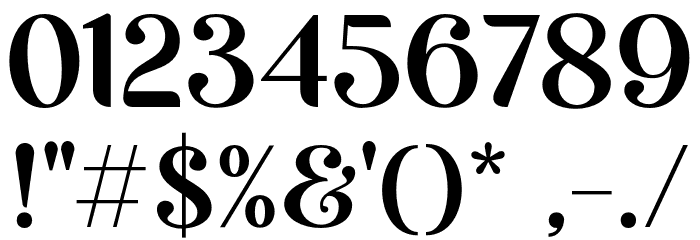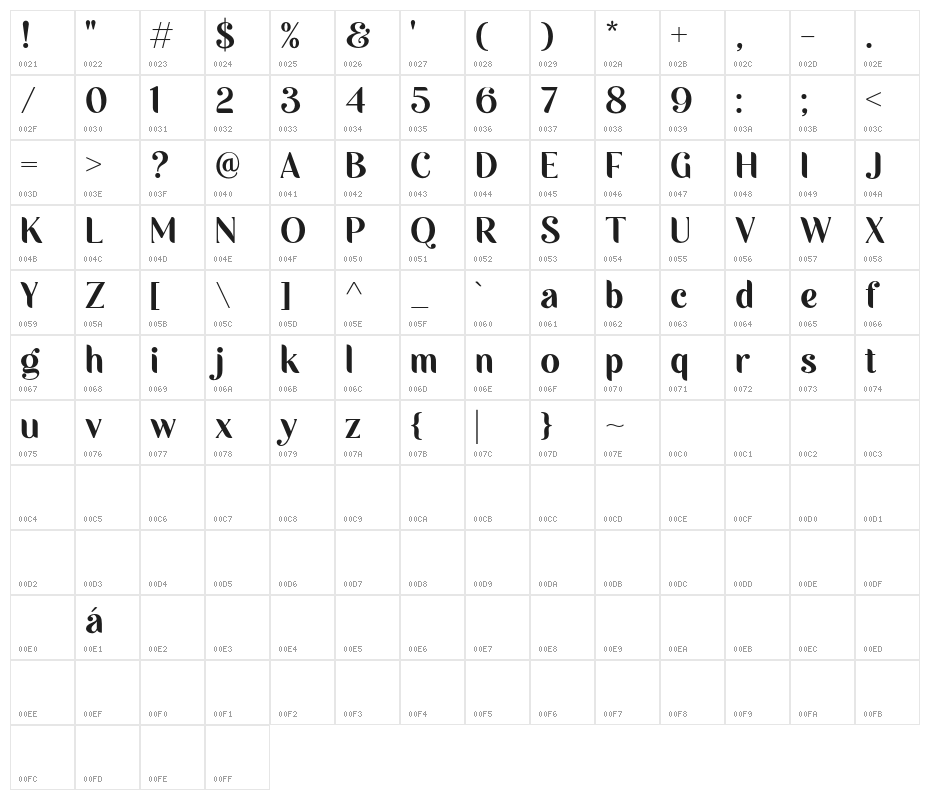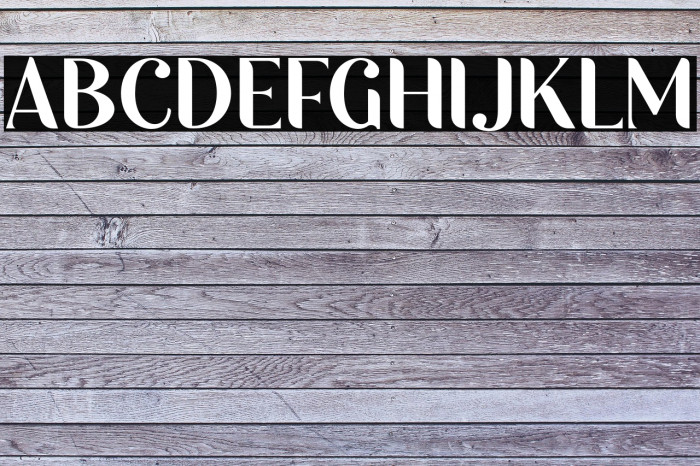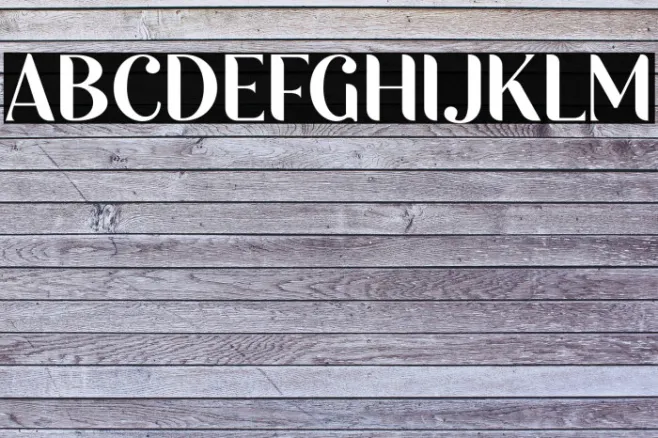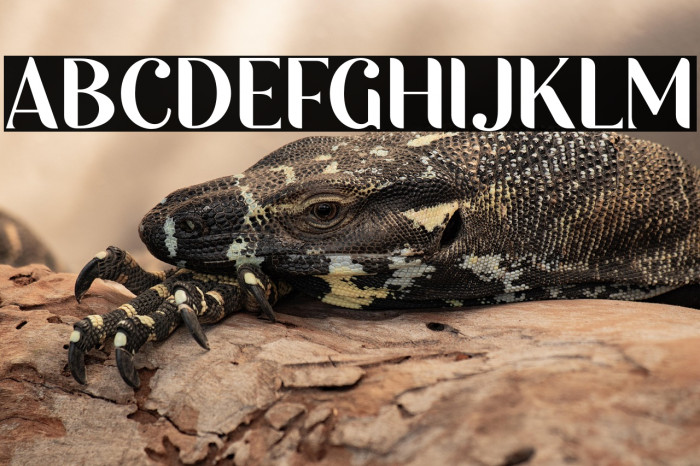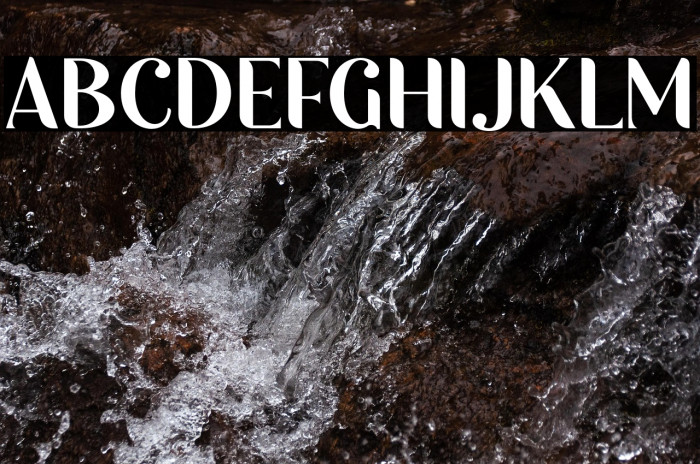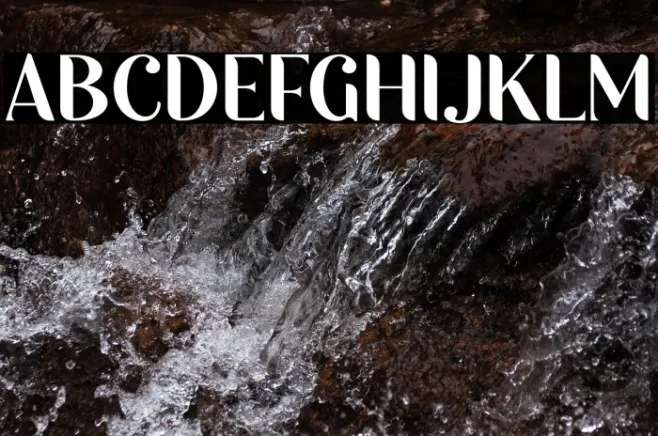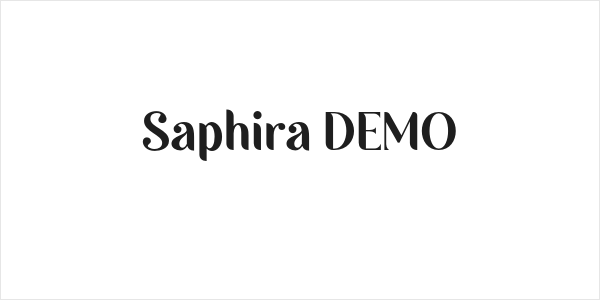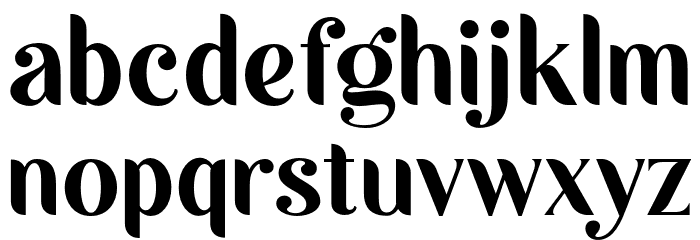
Saphira DEMO Font
Saphira DEMO Description
This font features a bold and elegant design with a modern twist. The uppercase letters are characterized by their strong, confident lines and subtle curves, giving them a sophisticated appearance. The lowercase letters maintain a consistent style, with rounded edges that add a touch of softness to the overall look. The numerals are clear and easy to read, with a balanced weight that complements the letters. Special characters are thoughtfully designed, maintaining the font's cohesive aesthetic. This font is versatile, suitable for both digital and print media, and can be used to create a striking visual impact.